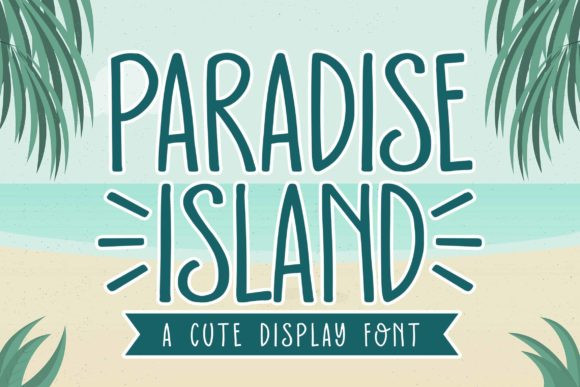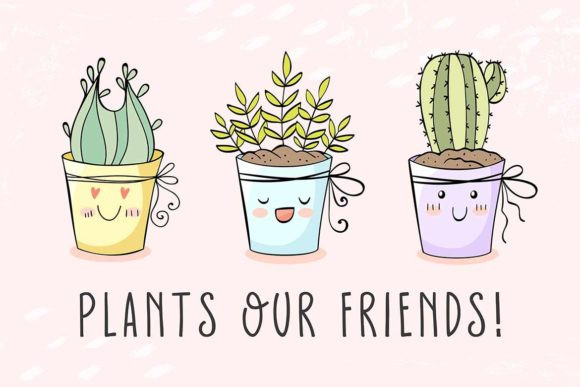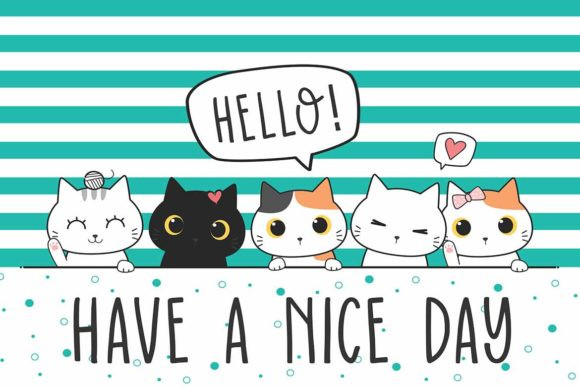
Paradise Island Font
Paradise Island is a minimal and neat display font. It can easily be matched to an incredibly large set of projects, so add it to your favorite ideas and notice how it makes them come alive!